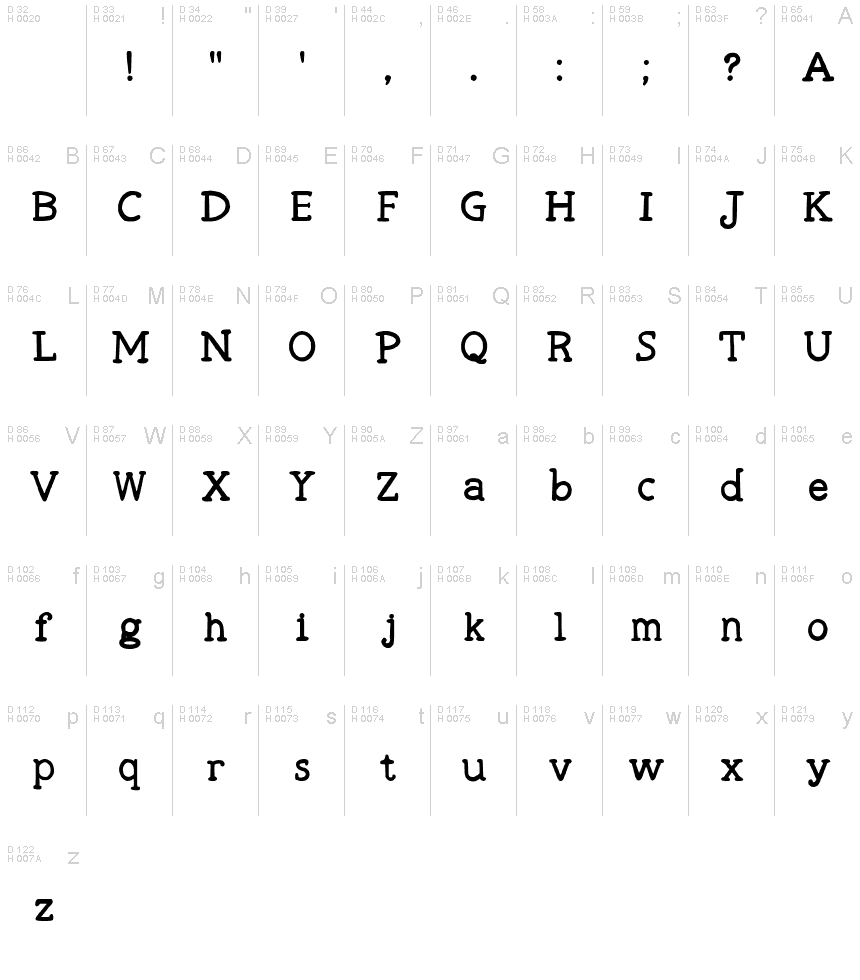
Robs Typewriter Regular
Robs Typewriter, designed by Roberto Gonzalez, is a stunning display font that will add character and personality to any project. With its eroded typewriter style, this semi-light font is perfect for vintage-inspired designs and retro-themed projects. The unique aesthetic of Robs Typewriter makes it particularly suitable for creating eye-catching logos, signage, and branding materials that require a distinct and memorable look. Whether you're designing a book cover, poster or website header, Robs Typewriter is the ideal choice for anyone looking to add an authentic touch of nostalgia to their work.